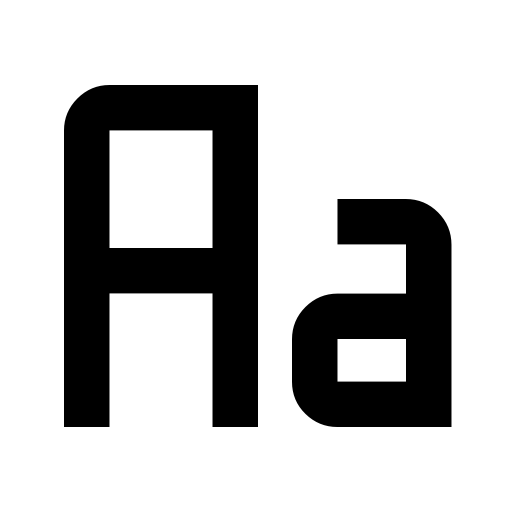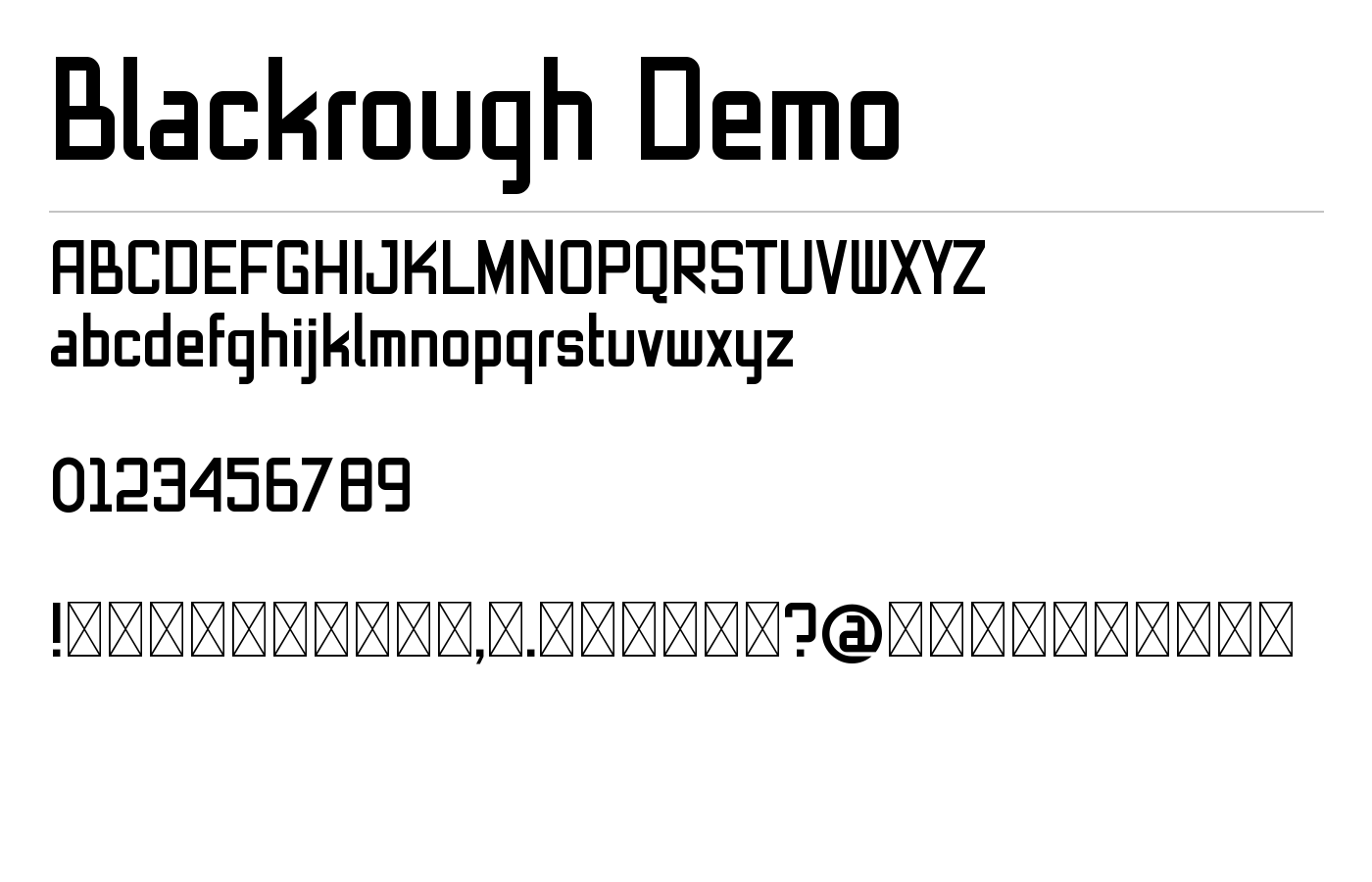
Blackrough Demo is a bold, condensed sans serif font with a modern, geometric style and strong vertical emphasis. Its sharp, angular letterforms and high x-height make it highly legible and suitable for impactful headlines or branding that aims for a futuristic and industrial vibe. This font works best for tech, sports, or urban-themed projects where a clean, confident tone is desired.
Blackrough Demo Font
About Blackrough Demo Font